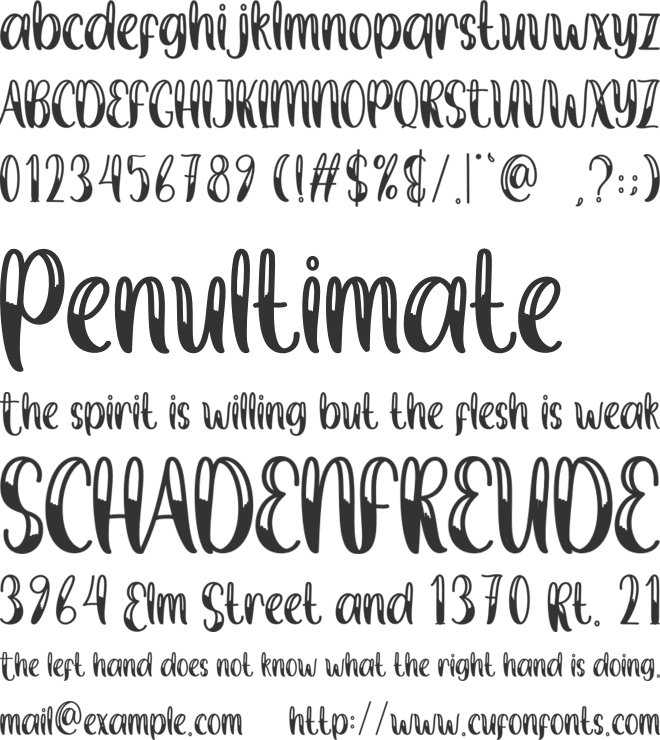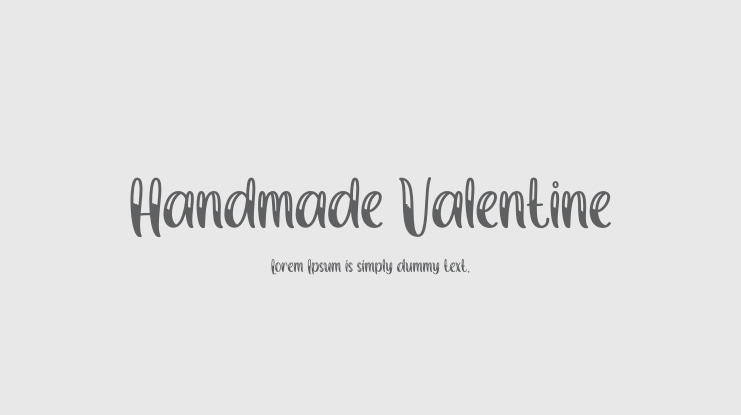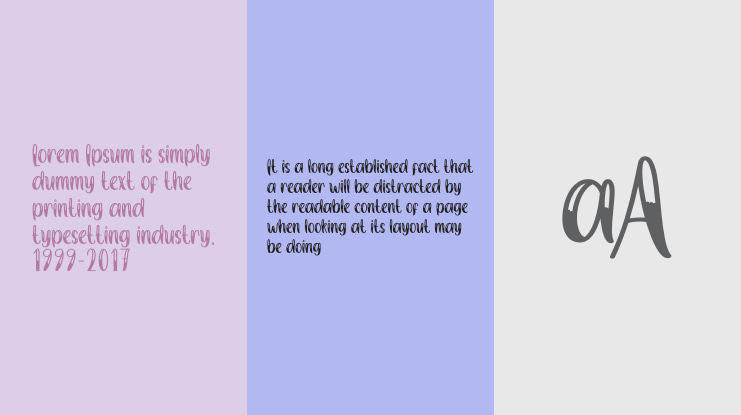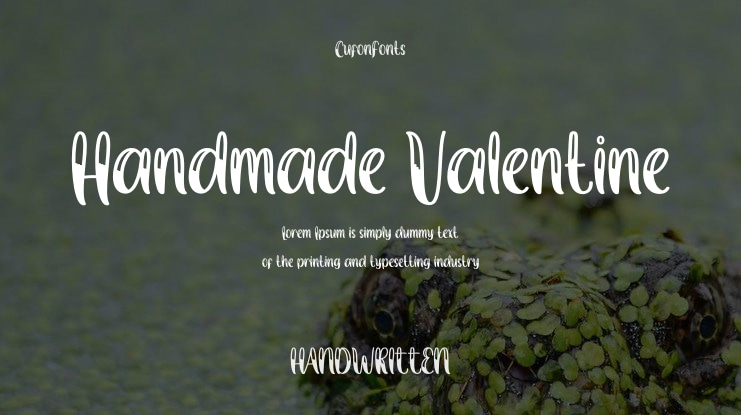
Discover unique creative products designed to provide an exceptional experience. Our collection features the latest stylish fonts perfect for various applications such as wall displays, wedding invitations, social media posts, logos, advertisements, packaging, designs, labels, photography, watermarks, invitations, stationery, and more. If you require elegant handwriting for your projects, look no further.